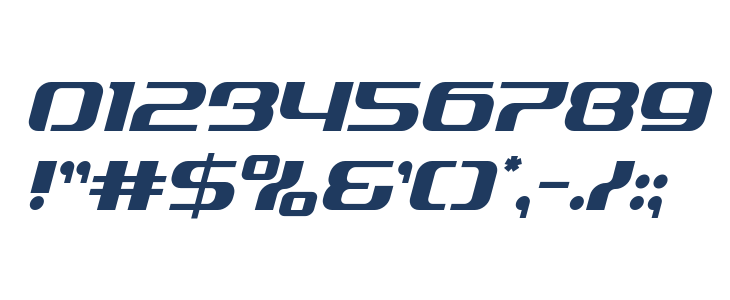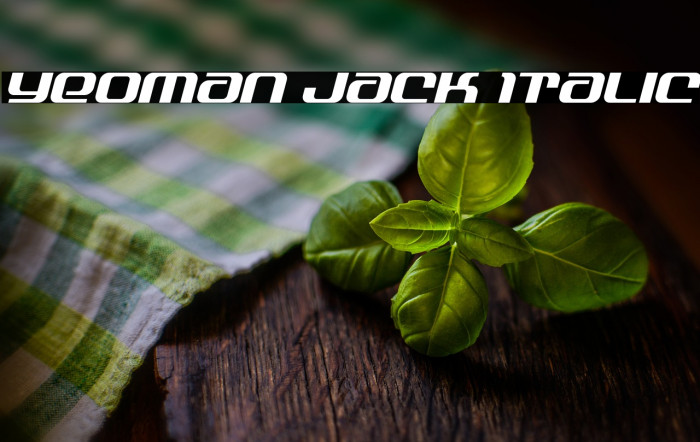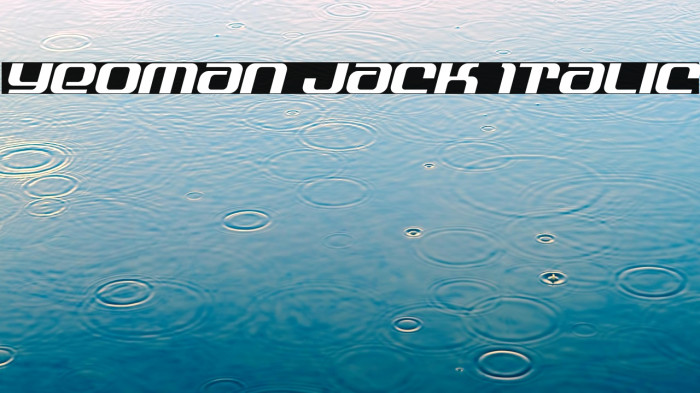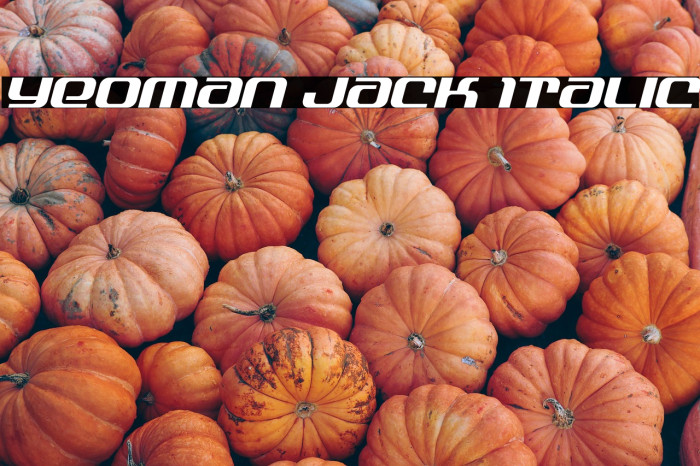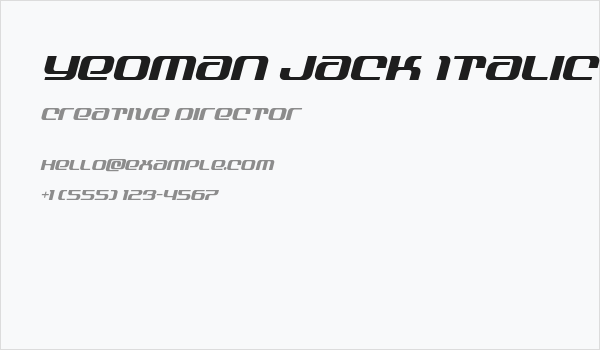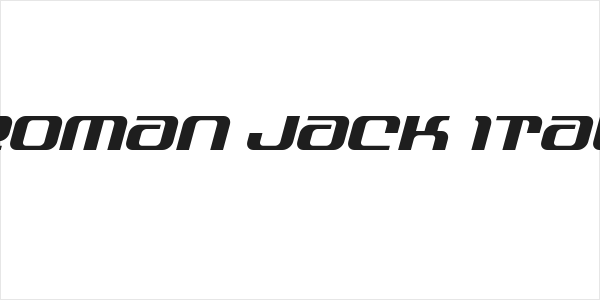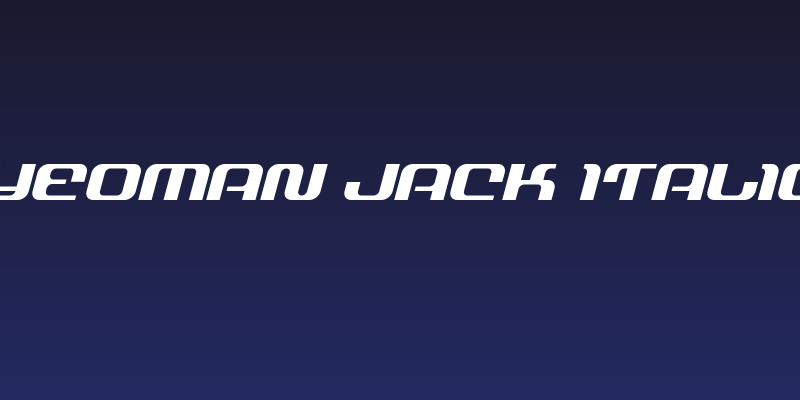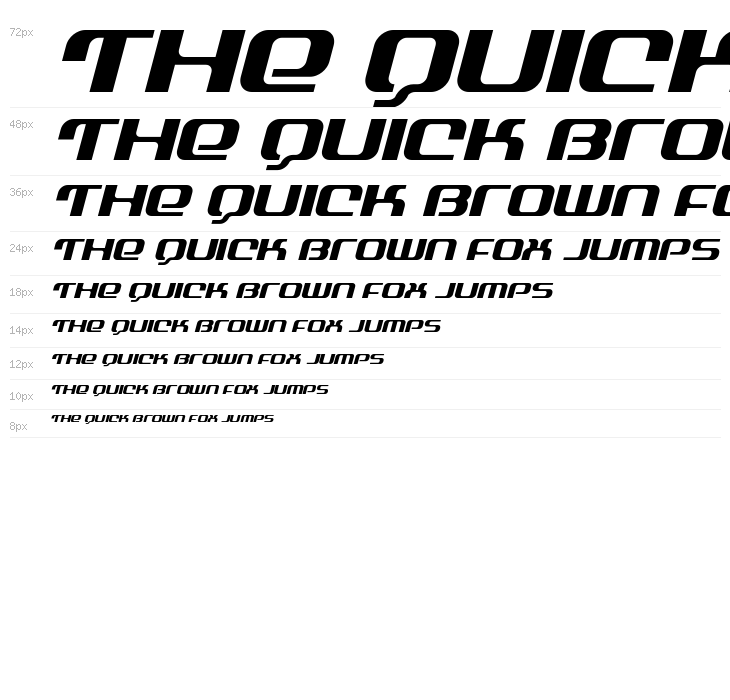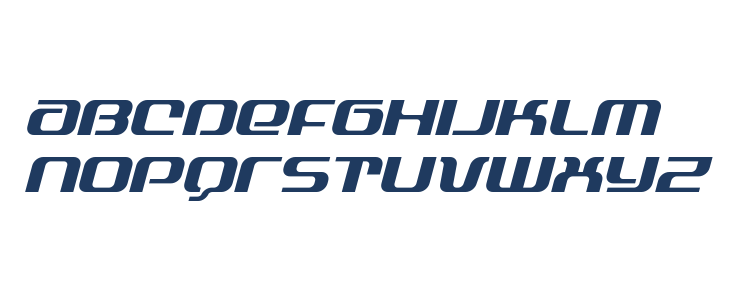
Yeoman Jack Italic Font
Yeoman Jack Italic Description
This font features a dynamic and modern italic style with a futuristic flair. The characters are slightly slanted, giving a sense of motion and speed. The design includes sharp angles and clean lines, creating a sleek and streamlined appearance. The uppercase and lowercase letters maintain a consistent style, with a unique geometric structure that adds to its contemporary look. The numerals and special characters are designed to match the overall aesthetic, ensuring uniformity across all text elements. This font is ideal for projects that require a bold and modern touch.
| Proposed Projects | Ideal for technology branding, sports team logos, modern advertising, and dynamic website headers. |